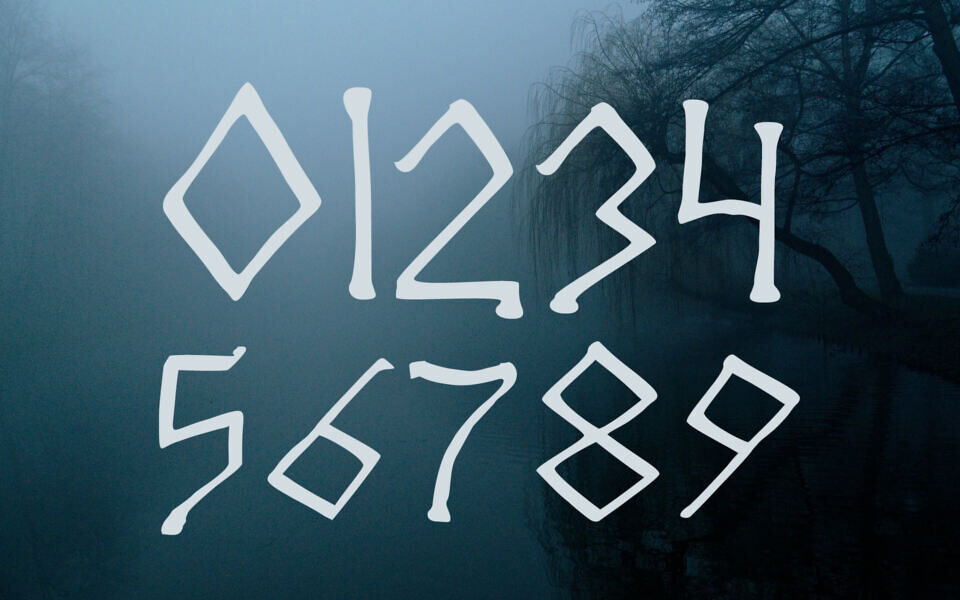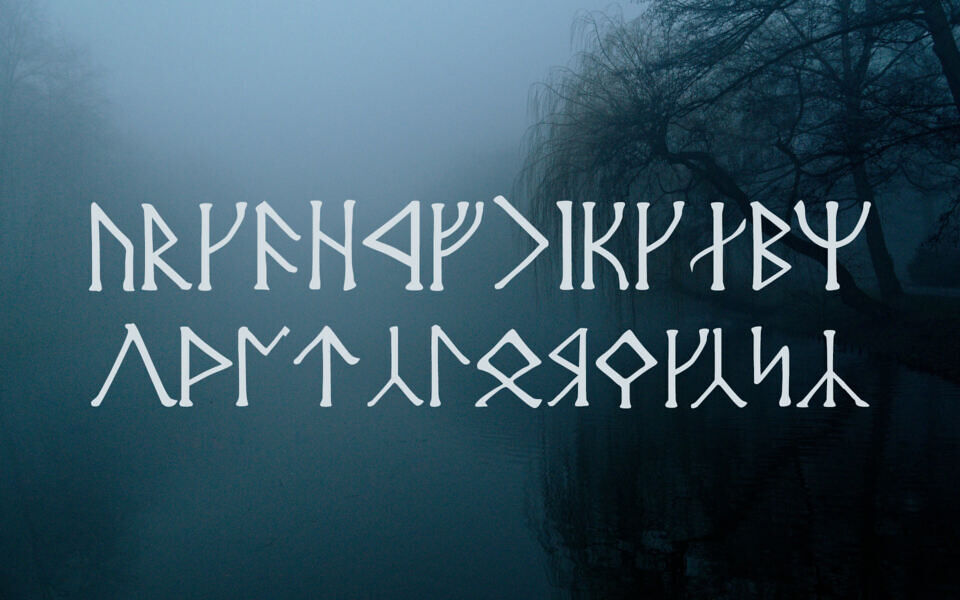
Angerthas Moria is a runic typeface inspired by the ancient Dwarvish script from Tolkien’s Middle-earth. Designed to echo the stone-carved glyphs found in Moria’s halls, it features angular, rune-like characters with a chiseled aesthetic.
Perfect for fantasy-themed designs, maps, and fan works, this font captures the mystique and strength of Dwarven craftsmanship. Whether used for headers or decorative text, Angerthas Moria brings an epic, Tolkien-esque flair to any project.